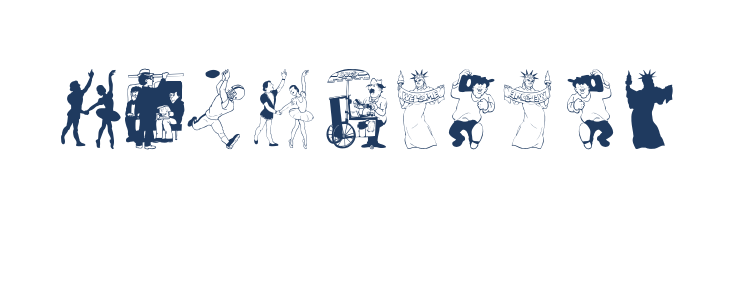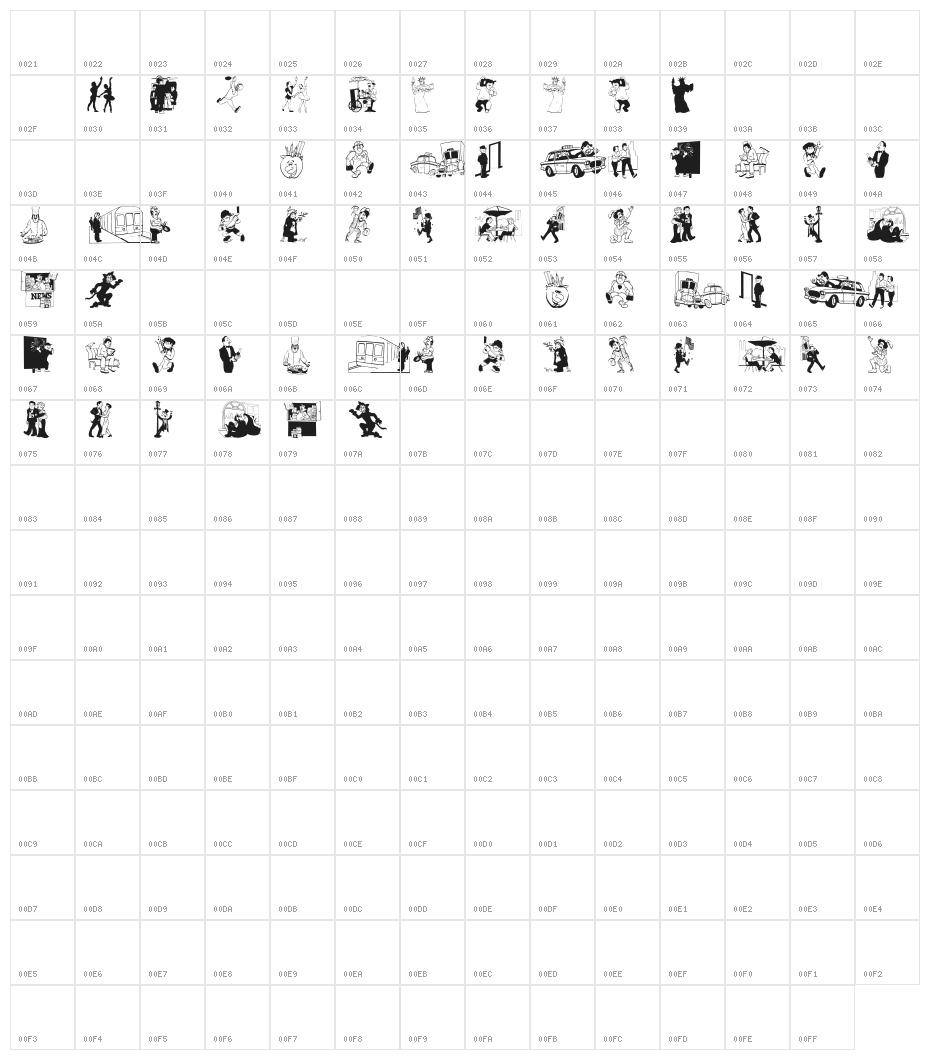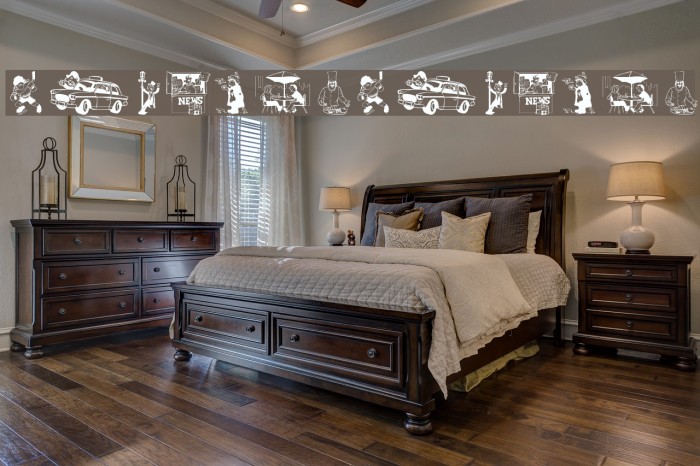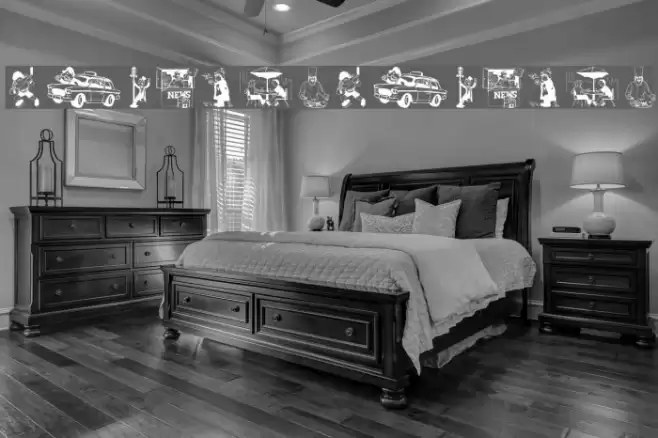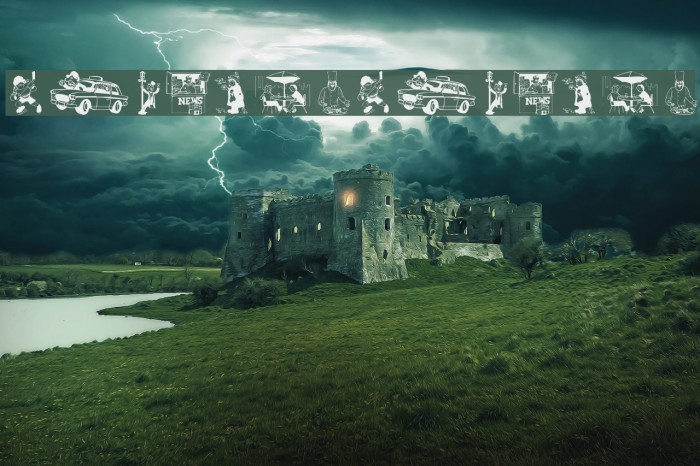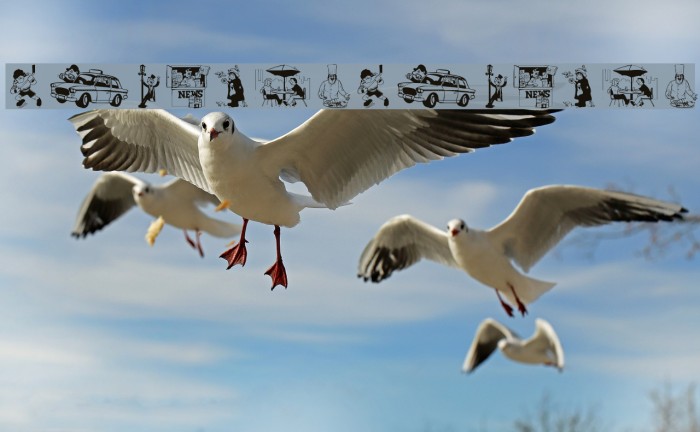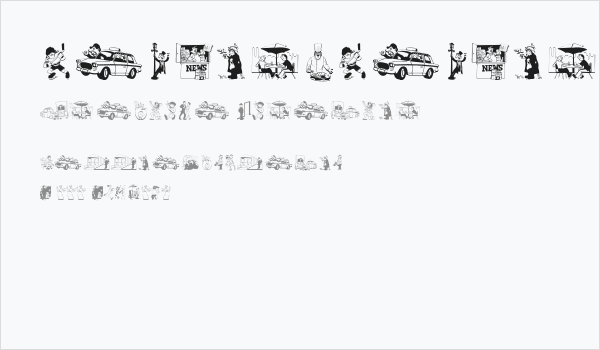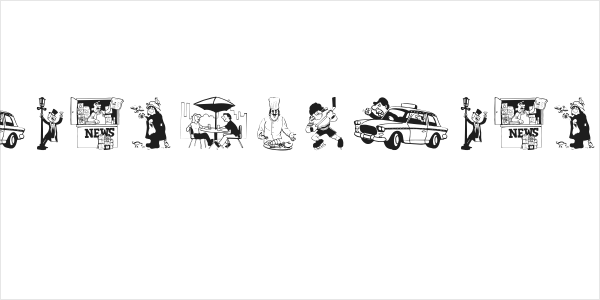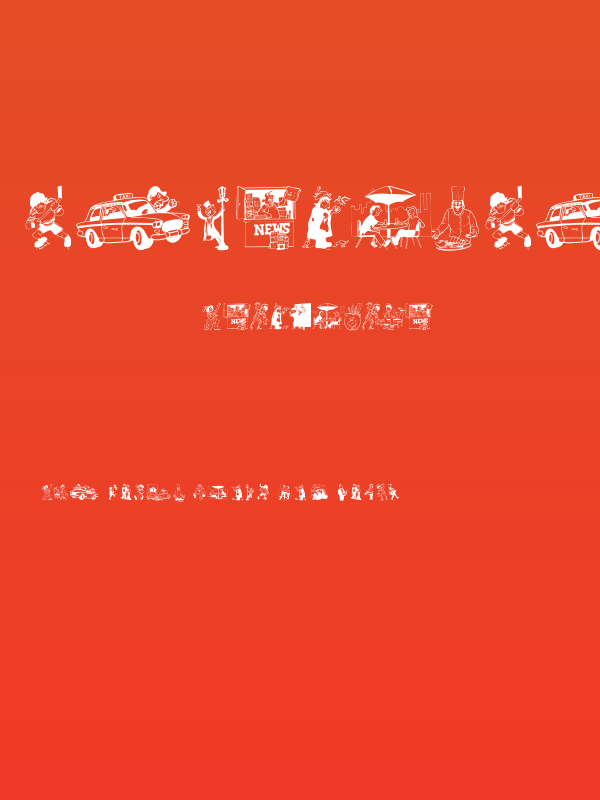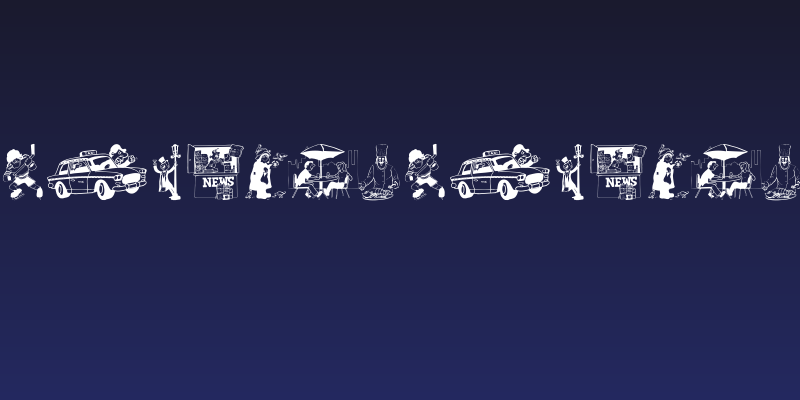
NewYorkNewYork Font
| Overall Style | Decorative, Playful, Thematic |
| Use Case | Logos, Posters, Themed Graphics, Illustrative Elements |
| Proposed Projects | Tourism brochures, event posters, themed party invitations, educational materials about New York, playful branding. |